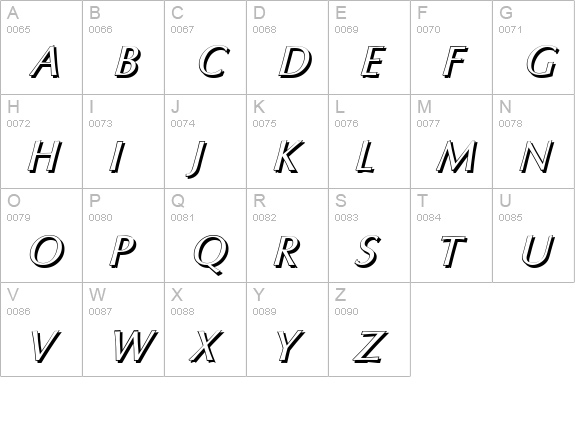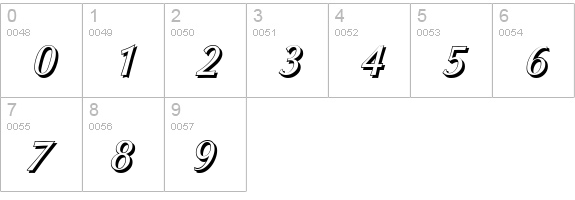
ColumbiaShadow-Italic Font Details
ColumbiaShadow-Italic is a distinctive, italic variant in the ColumbiaShadow typeface family \xE2\x80\x94 well suited to design and typography projects.
ColumbiaShadow-Italic font is a stylish and elegant typeface that adds a touch of sophistication to any design project. Its sleek and modern italicized style gives a unique and dynamic look to text, making it perfect for a wide range of applications, from branding to editorial design. This font features clean lines and smooth curves, creating a sense of movement and energy. The shadow effect adds depth and dimension, making text stand out and grab the viewer's attention. Whether used for headlines, logos, or body text, ColumbiaShadow-Italic font is sure to make a bold statement. Best of all, ColumbiaShadow-Italic font is available for free download at FontsMarket.com. So go ahead and give your projects a professional and polished look with this versatile and eye-catching typeface.